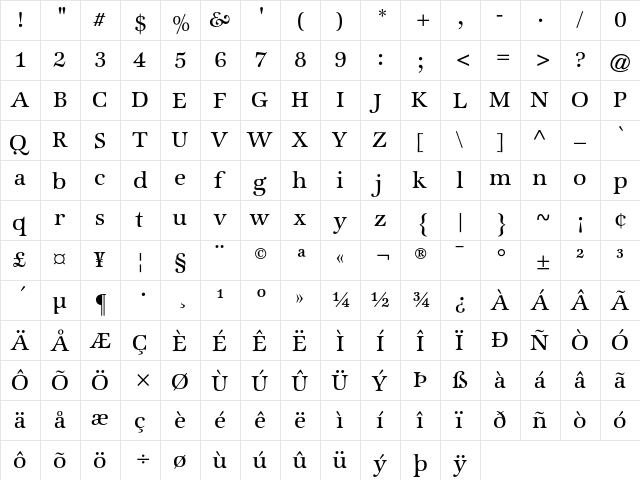
ATZapfInternational Regular
Design Context for ATZapfInternational Typeface
ATZapfInternational offers clean, dependable letterforms without strong stylistic allegiance, making it a practical choice for designers who need flexibility.